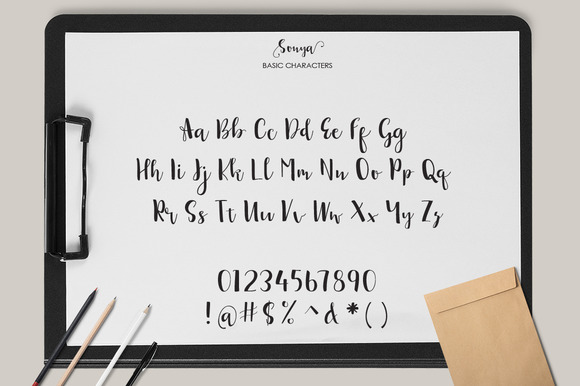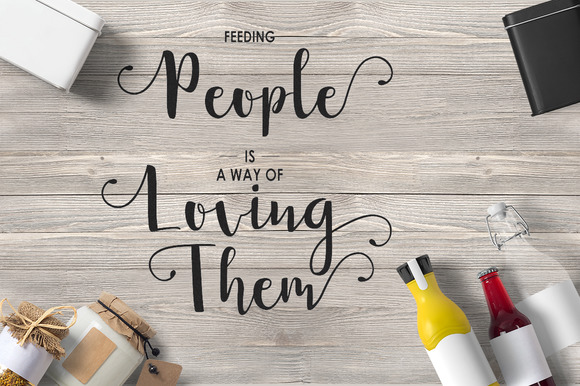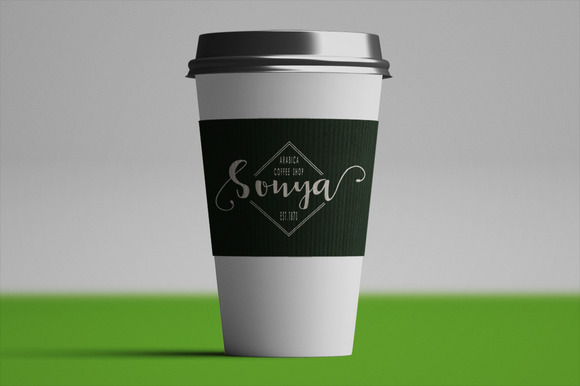
HomeScript FontsSonya Script Font Script Fonts Sonya Script Font FacebookXPinterestWhatsApp Sonya Script Font Poster 2 Sonya Script Font Poster 3 Sonya Script Font Poster 4 Sonya Script Font Poster 5 Sonya Script Font Poster 6 About Sonya Script Font Sonya is a modern calligraphy typeface that comes with dancing up and down baseline DOWNLOAD ON CREATIVE FABRICAThis font is sold and delivered by Creative Fabrica. Font Canyon may earn a commission if you buy through this link. People also explored Kenbo Font Gisho Font Birthday Party Font Morning Love Font Toffee Gummies Font Korrupt Keira Dreamer Font PowerStation Uniwerek 272 0 TagsSonya Script Font Previous articleScallion FontNext articleMarsha Belle Script Font LEAVE A REPLY Cancel reply Comment: Please enter your comment! Name:* Please enter your name here Email:* You have entered an incorrect email address! Please enter your email address here Website: Save my name, email, and website in this browser for the next time I comment. Personal Use Free Qiwqiw Personal Use Free Read more about this font Bonifaciy Personal Use Free Read more about this font Dimensional Look71 Personal Use Free Read more about this font Strasua Personal Use Free Read more about this font BLOG Using Fonts in Digital Marketing: Tips to Strengthen Your Brand Identity In the realm of digital marketing, every visual element plays a crucial role in shaping a brand's identity, and fonts are no exception. The... Where to Buy American Fonts Online in 2024 Top 10 Handwritten Fonts That Elevate Your Designs Free Fonts Risk: Why Free Fonts Can Be Dangerous for Designers